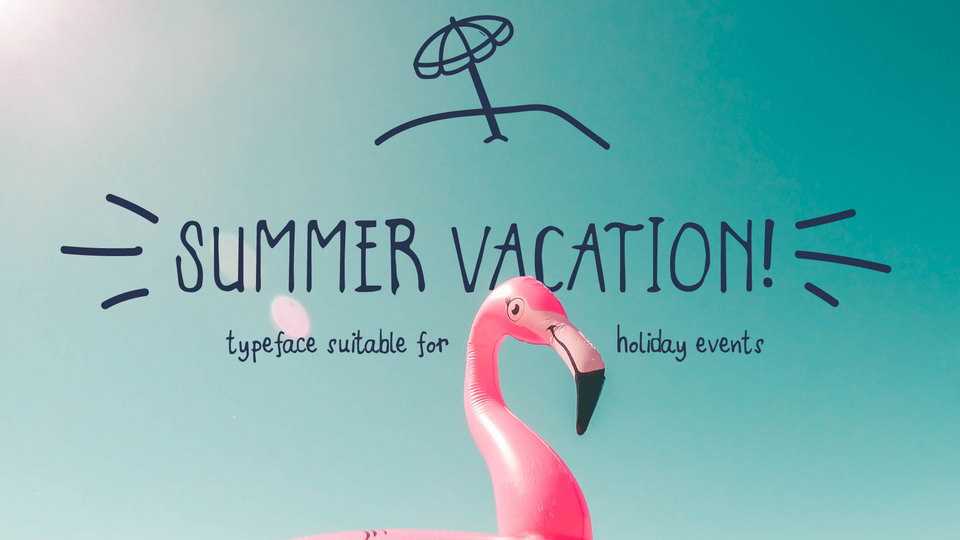
Download Summer Vacation font, a simple handwritten typeface inspired by the high spirit of the summer where it’s all about the sunshine and lemonade.